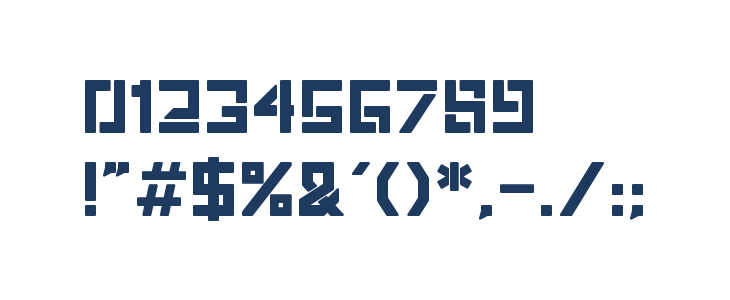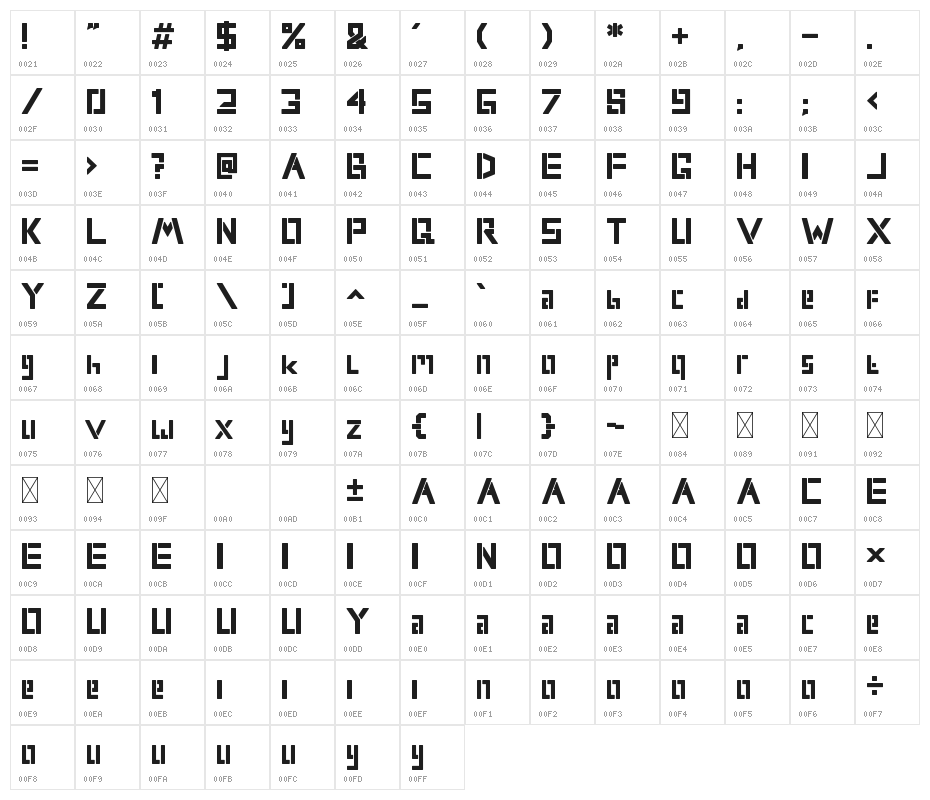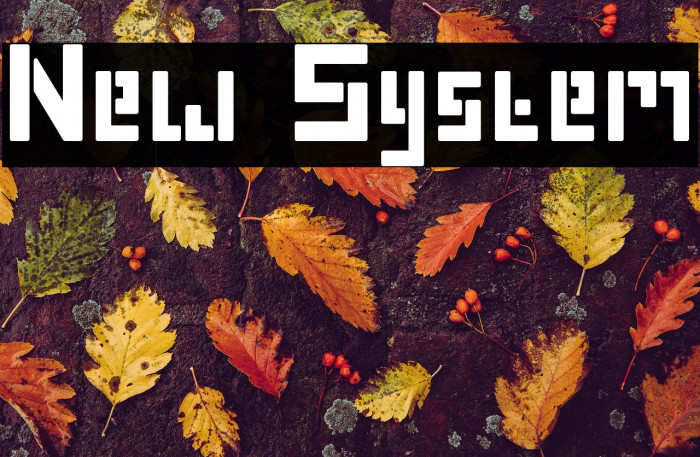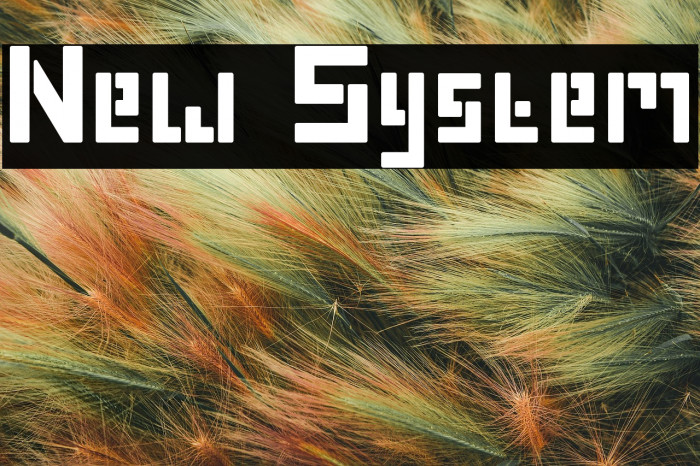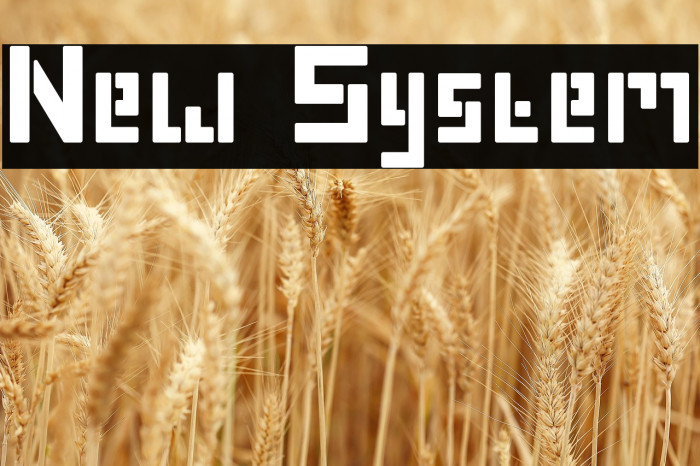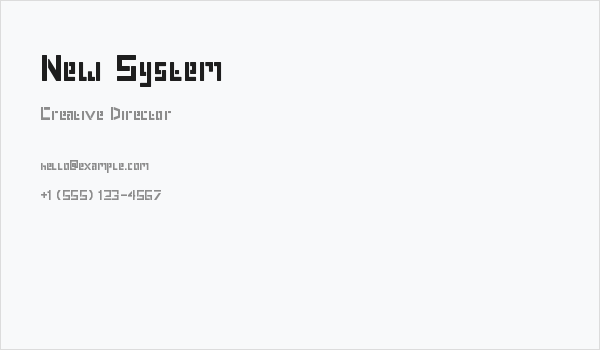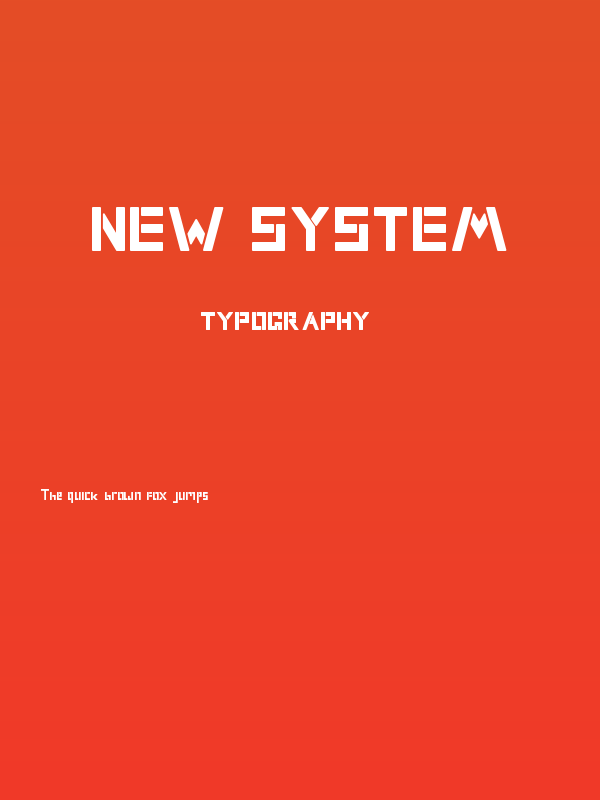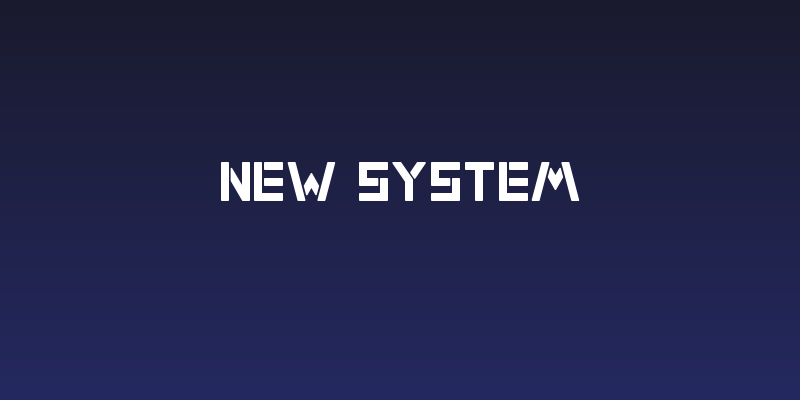
New System Font
This font features a bold, geometric design with a futuristic aesthetic. The characters are constructed with sharp angles and straight lines, giving them a mechanical and industrial feel. The uppercase and lowercase letters maintain a consistent style, with the lowercase being slightly more compact. The numerals are equally bold and angular, matching the overall theme. Special characters are designed to complement the alphanumeric set, maintaining the same blocky and robust appearance. This font is ideal for projects that require a strong, modern, and edgy look.
| Proposed Projects | Ideal for sci-fi themed designs, tech branding, video game interfaces, and modern posters. |